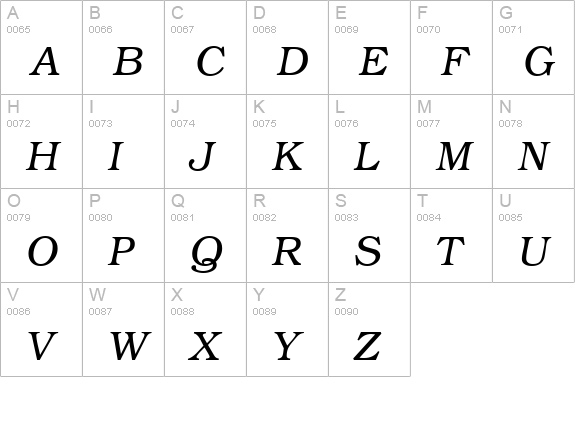
B791-Roman-Italic is a distinctive, italic variant in the B791 typeface family \xE2\x80\x94 well suited to design and typography projects.
B791-Roman-Italic is a classic and elegant font that exudes sophistication and style. Its sleek and slanted design adds a touch of modernity while still maintaining a timeless appeal. Perfect for use in various design projects, from invitations to branding materials, this font is sure to make a statement. The graceful curves and sharp angles of B791-Roman-Italic create a harmonious balance that is both pleasing to the eye and easy to read. Best of all, B791-Roman-Italic is available for free download at FontsMarket.com. This means you can easily access this stunning font and use it in your projects without any cost. Don't miss out on the opportunity to enhance your designs with the beauty and versatility of B791-Roman-Italic - download it for free today!